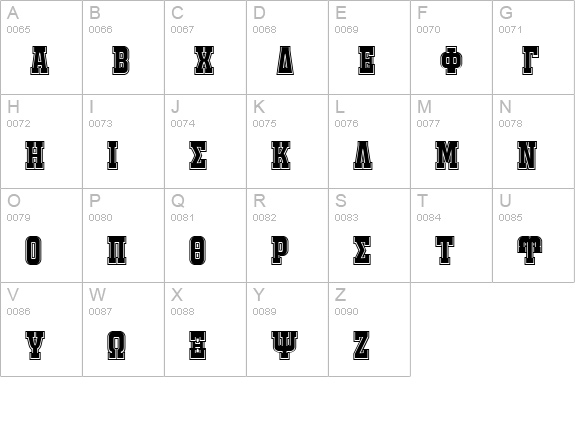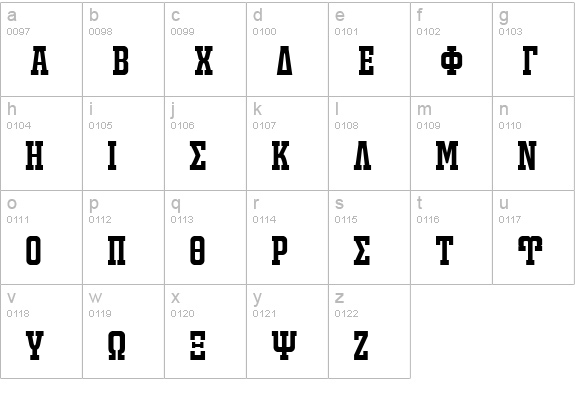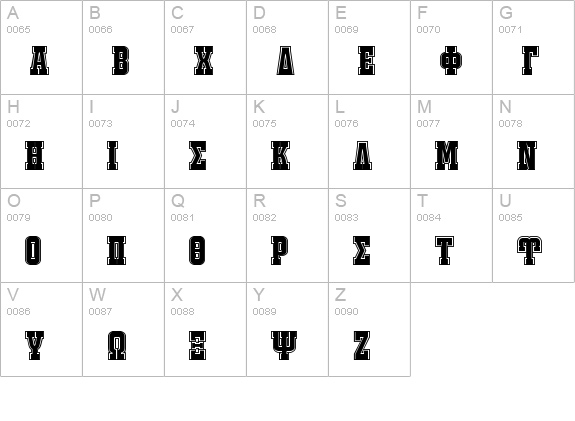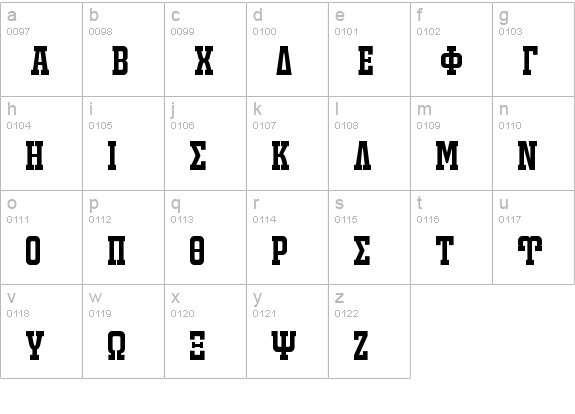
JACKPORT GREEK NCV Font Details
Introducing JACKPORT GREEK NCV, a captivating font that effortlessly combines classic Greek letterforms with a modern twist. This font is the perfect blend of elegance and contemporary design, making it ideal for a wide range of creative projects. Featuring bold and intricate strokes, JACKPORT GREEK NCV exudes confidence and sophistication. Its unique character set includes all the Greek letters, ensuring that you can seamlessly incorporate this font into any Greek text, whether it be for educational materials, branding, or artistic endeavors. One of the most remarkable aspects of this font is its versatility. From headlines to body text, JACKPORT GREEK NCV adapts beautifully to any size and context, ensuring readability and visual impact. Its carefully crafted details and eye-catching curves make it a standout choice for any project that demands attention to detail. What makes JACKPORT GREEK NCV even more remarkable is that it is freely available for download at FontsMarket.com. This means that you can easily access and utilize this incredible font without any cost or restrictions. Whether you are a professional designer or simply someone who appreciates the beauty of typography, JACKPORT GREEK NCV is a font that will undoubtedly enhance your creative endeavors. So why wait? Take advantage of this incredible opportunity and download JACKPORT GREEK NCV today. Unleash your creativity and elevate your designs with this exceptional font that seamlessly blends tradition and innovation.